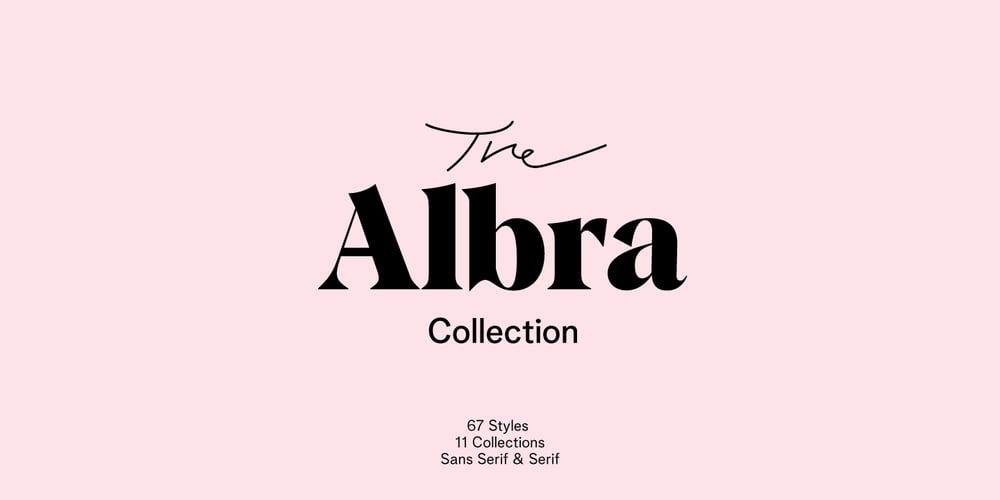
Albra Font Family was designed by Yang Lu and published by BumbumType. Albra contains 68 styles and family package options. Our Albra family is a high comprehensive collection of typefaces designed to work together in a wide range of application. From delicate headlines to small text application. Branding, editorial, packaging or logos. A timeless workhorse with many possibilities. The Albra Collection – a sophisticated choice, containing more than 500 Glyphs with a large number of OpenType features and wide language support.